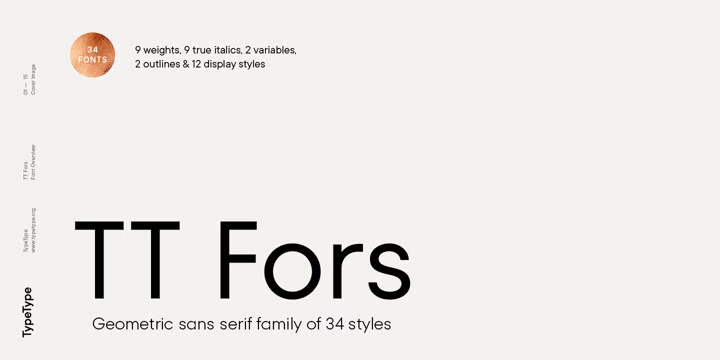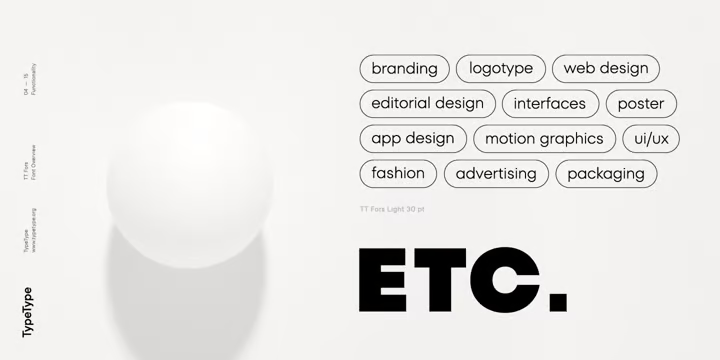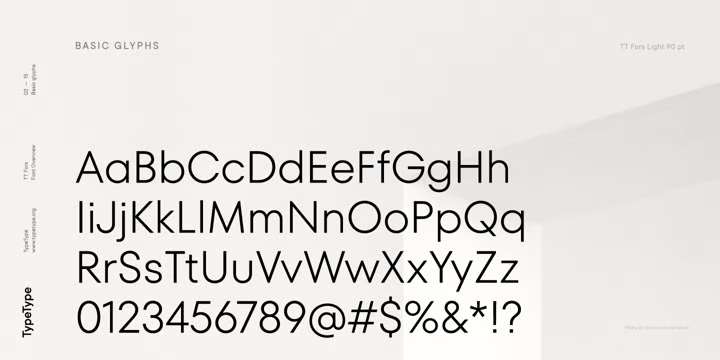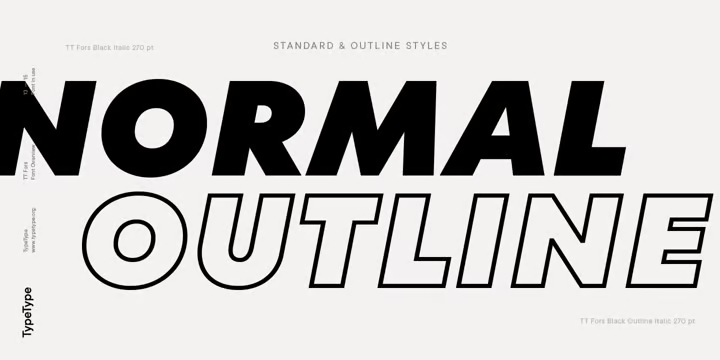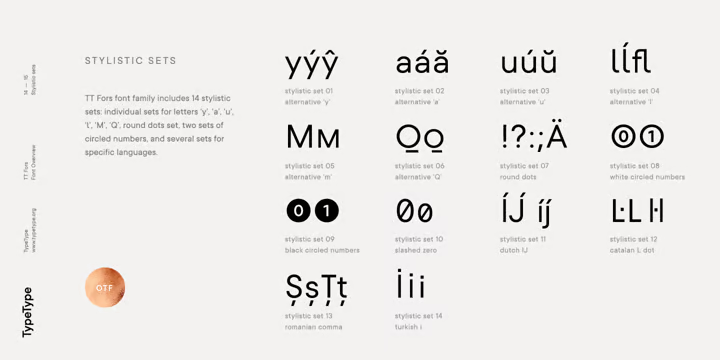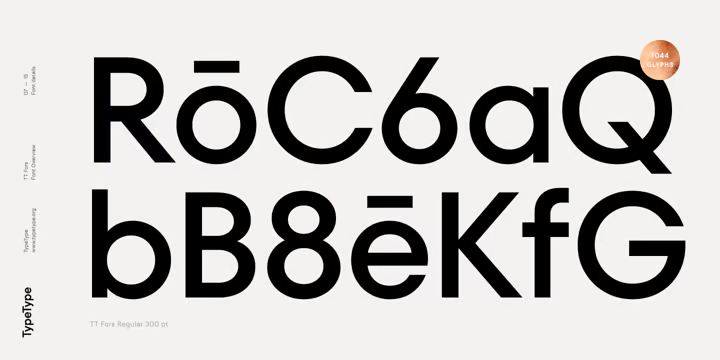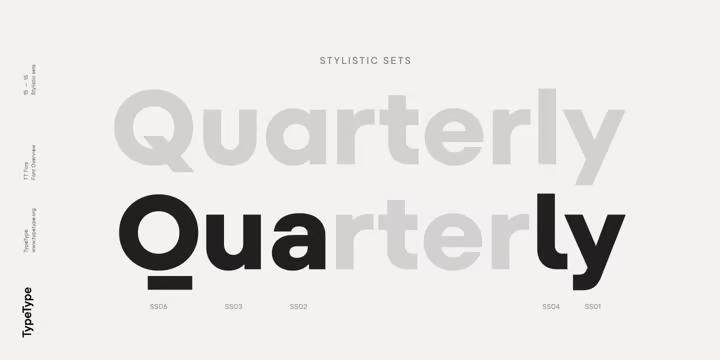
TT Fors Font Family
Introducing TT Fors, a contemporary geometric sans serif font that seamlessly blends varying widths, inspired by fundamental geometric shapes like circles, squares, and triangles. As a valuable addition to TypeType’s functional sans serif collection, which includes acclaimed fonts such as TT Norms Pro, TT Commons, TT Hoves, and TT Interphases, TT Fors draws inspiration from iconic geometric grotesques of the early to mid-20th century, including Futura, Neuzeit Grotesk, Twentieth Century, Avantgarde Gothic, and more.
Crafted through a meticulous study of the visual impact of geometric grotesques during that era, TT Fors aims to be a versatile and functional typeface. Its design encapsulates the essence of the early to mid-20th-century visual environment while seamlessly integrating into contemporary media, from branding and packaging design to interfaces and applications.
Versatility defines TT Fors, signifying a typeface suitable for a myriad of applications. The font family boasts rounded characters resembling perfect circles, alongside narrower proportions in other characters. Incorporating relatively tall lowercase characters enhances functionality. Thanks to precise geometric shapes and consistent construction principles, TT Fors excels in both large headlines and small text sizes, making it ideal for diverse applications such as book printing and web design.
The TT Fors family comprises 34 fonts, including 9 weights and 9 italic styles in the text subfamily, 6 weights and 6 italic styles in the display subfamily, as well as 2 outline styles and 2 variable fonts for each subfamily. TT Fors offers stylistic alternatives, ligatures, small caps (text family only), numbers in circles, arrows, alternative round full stops, punctuation marks (text family only), slashed zero, and other practical features. For a comprehensive understanding of OpenType features, refer to the font specimen.
Additionally, TT Fors introduces the display subfamily, TT Fors Display, designed as a stylish companion to the text fonts. This subfamily is characterized by high contrast in horizontal or vertical strokes, adding vibrancy while maintaining a sophisticated and serious demeanor.